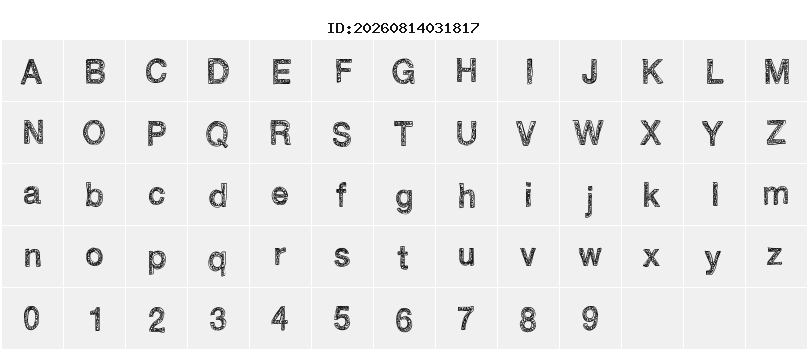
About Swirlvetica.ttf
Swirlvetica.ttf is a modern, elegant sans-serif font designed for ultimate readability and visual harmony. Perfect for branding, headlines, web design, and print materials.